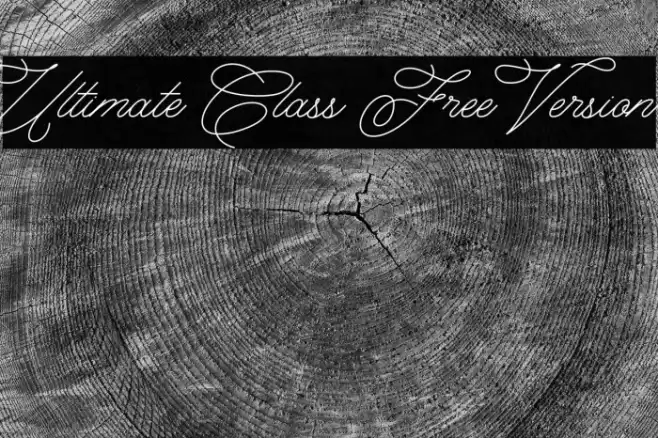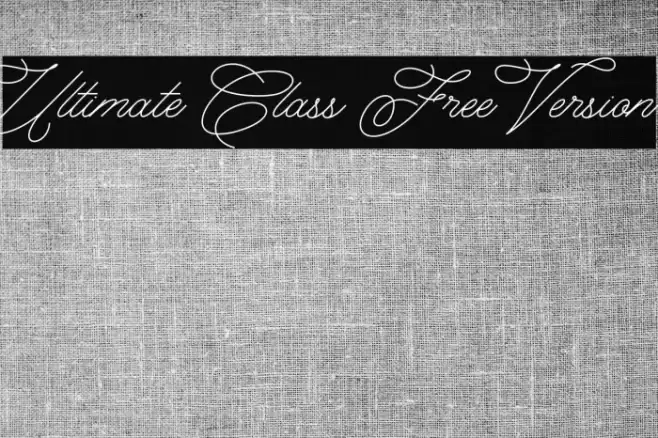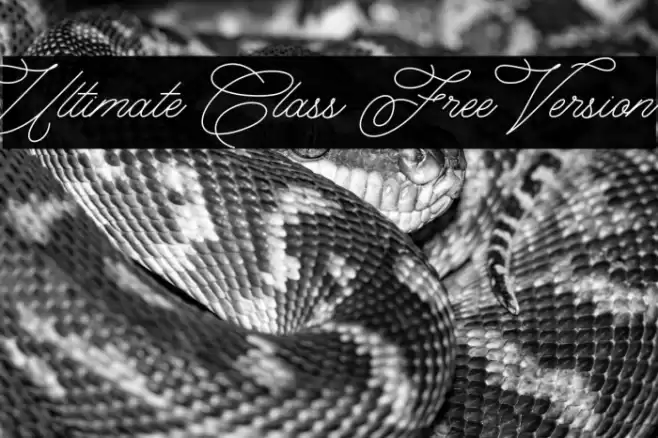
Ultimate Class Free Version Font
Ultimate Class Free Version Description
This elegant script font features intricate flourishes and loops, particularly in the uppercase letters, which exude a sense of sophistication and formality. The lowercase letters are more straightforward, maintaining a smooth and flowing cursive style that complements the ornate capitals. The font's overall appearance is delicate and refined, making it suitable for formal invitations, certificates, and branding that requires a touch of elegance. The numerals and special characters maintain the same stylistic consistency, ensuring a cohesive look across all text elements.
An elegant script font with intricate flourishes and smooth cursive style from Regular fonts.
- Proposed Projects: Ideal for wedding invitations, formal event programs, luxury branding, and elegant stationery.
- Overall Style: Elegant, Formal
- Use Case: Invitations, Branding, Certificates